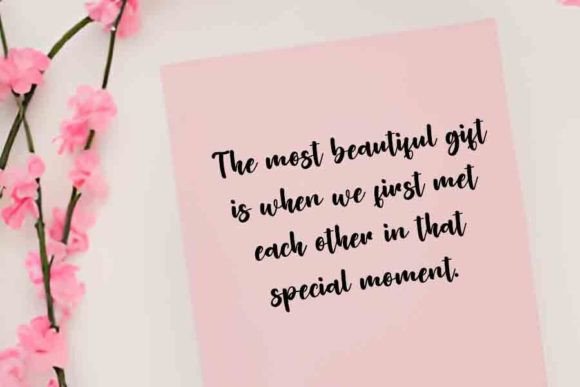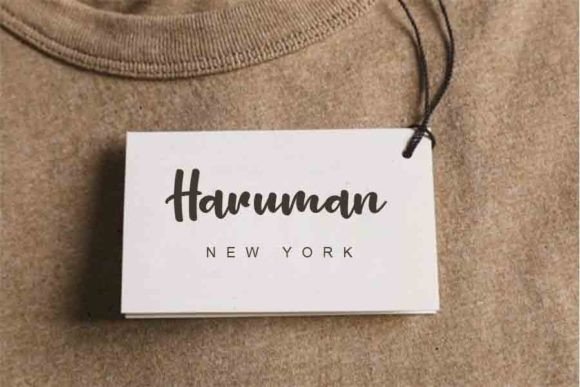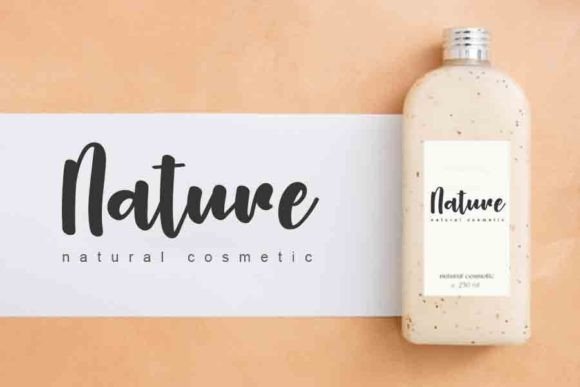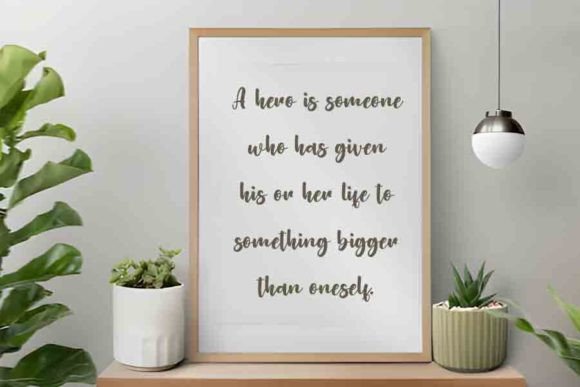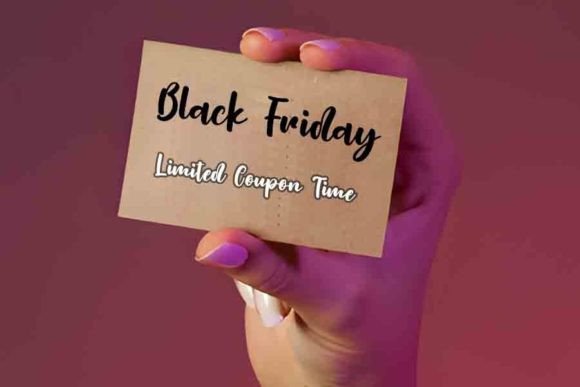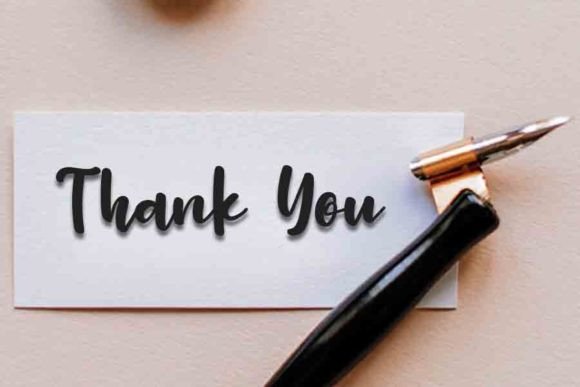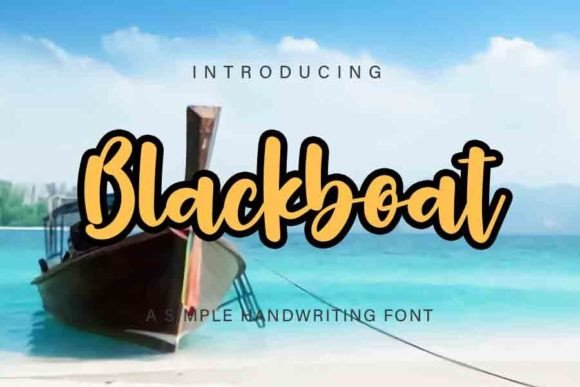
Introducing Blackboat Font: Elevate Your Designs with Elegance and Modernity
Are you a designer or crafter looking for a font that exudes elegance and modernity? Look no further than Blackboat Font, a bouncy and bold script calligraphy font that’s perfect for a wide range of creative projects. In this article, we’ll dive into the features and benefits of Blackboat Font, and explore how it can elevate your designs for weddings, invitations, stickers, sublimation, cards, birthday celebrations, t-shirt design, farmhouse design, and more.
The Unique Characteristics of Blackboat Font
Blackboat Font is a script calligraphy font that boasts a distinctive bouncy and bold style, making it perfect for designs that require a touch of elegance and sophistication. Its modern touch sets it apart from traditional calligraphy fonts, giving it a fresh and contemporary feel that’s sure to capture attention. With Blackboat Font, you can add a level of refinement and poise to your designs, making them perfect for high-end clients or special occasions.
Perfect for a Wide Range of Creative Projects
One of the best things about Blackboat Font is its versatility. Its elegant and modern design makes it suitable for a wide range of creative projects, including:
- Weddings: Use Blackboat Font to create stunning wedding invitations, save-the-date cards, and ceremony programs that set the tone for a sophisticated and memorable celebration.
- Invitations: Whether it’s a birthday party, baby shower, or graduation celebration, Blackboat Font is perfect for creating eye-catching and elegant invitations that make a lasting impression.
- Stickers: Add a touch of personality to your stickers with Blackboat Font, making them perfect for labeling products, gifts, or party favors.
- Sublimation: Use Blackboat Font to create vibrant and colorful sublimation designs for t-shirts, mugs, and other products that make great gifts or promotional items.
- Cards: Create beautiful and heartfelt cards for special occasions, such as birthdays, anniversaries, or get-well wishes.
- T-shirt Design: Use Blackboat Font to create stunning t-shirt designs that make a fashion statement or promote a brand or business.
- Farmhouse Design: Add a touch of rustic elegance to your farmhouse designs with Blackboat Font, perfect for creating signs, labels, or other decorative items.
Why Choose Blackboat Font?
So why choose Blackboat Font over other fonts? Here are just a few reasons:
- Elegant and Modern: Blackboat Font offers a unique blend of elegance and modernity, making it perfect for designs that require a touch of sophistication.
- Versatile: Blackboat Font is suitable for a wide range of creative projects, making it a great addition to any designer’s or crafter’s toolkit.
- High-Quality: Blackboat Font is a high-quality font that’s designed to produce crisp and clear results, even at small sizes.
Tips for Using Blackboat Font
Here are a few tips for getting the most out of Blackboat Font:
- Experiment with Colors: Blackboat Font looks great in a variety of colors, so don’t be afraid to experiment and find the perfect hue for your design.
- Pair with Other Fonts: Blackboat Font pairs well with other fonts, so try combining it with a sans-serif font for a modern and elegant look.
- Use it Sparingly: Blackboat Font is a bold and eye-catching font, so use it sparingly to avoid overwhelming your design.
In conclusion, Blackboat Font is a versatile and elegant script calligraphy font that’s perfect for a wide range of creative projects. Its modern touch and bouncy style make it a great choice for designers and crafters looking to add a touch of sophistication to their designs. With its ease of use, high-quality design, and versatility, Blackboat Font is a great addition to any designer’s or crafter’s toolkit.